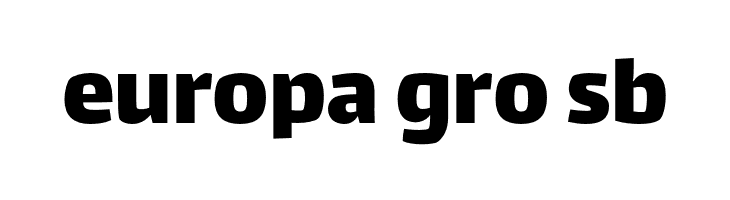
A sophisticated script font with flowing, interconnected characters and high contrast strokes.
A bold, expressive handwritten font with dynamic strokes and a brush-like texture.
A decorative font with letters designed to resemble lizards, featuring elaborate and whimsical details.
A bold, geometric font with strong, modern letterforms.
A bold, geometric font with a modern and structured design.
A flowing, cursive font with elegant, sweeping strokes and high contrast.
A playful, rounded font with bold, smooth curves and a friendly appearance.
A bold, modern font with thick strokes and a clean, impactful design.
A clean, modern monospaced font with equal-width characters and low contrast.
A modern, monospaced font perfect for coding and technical documents.